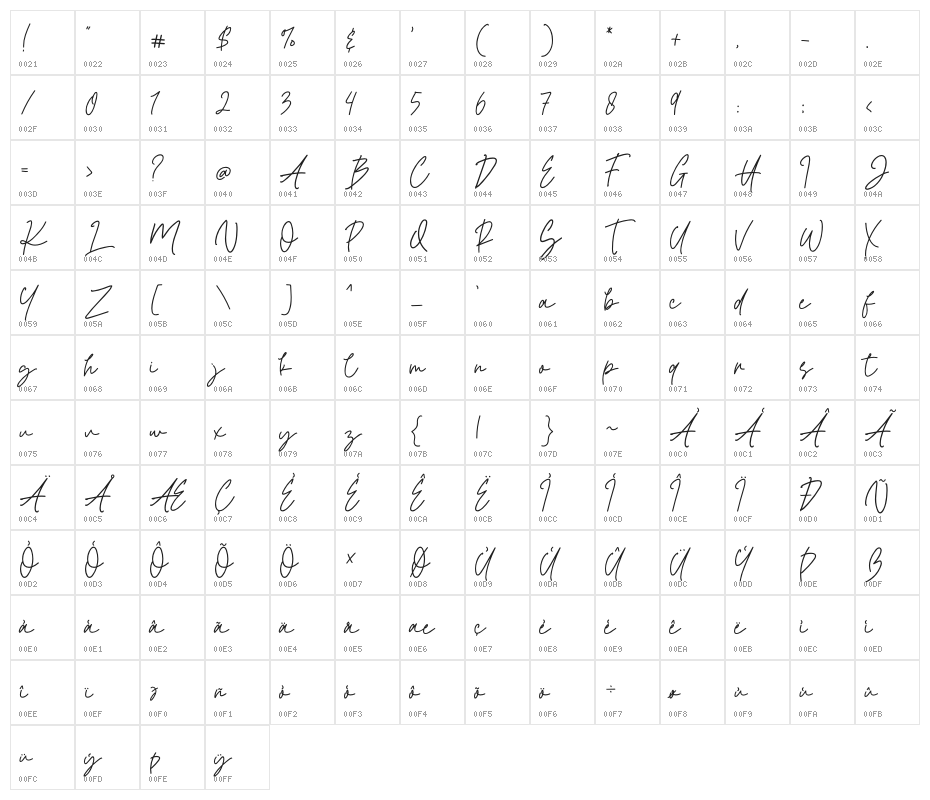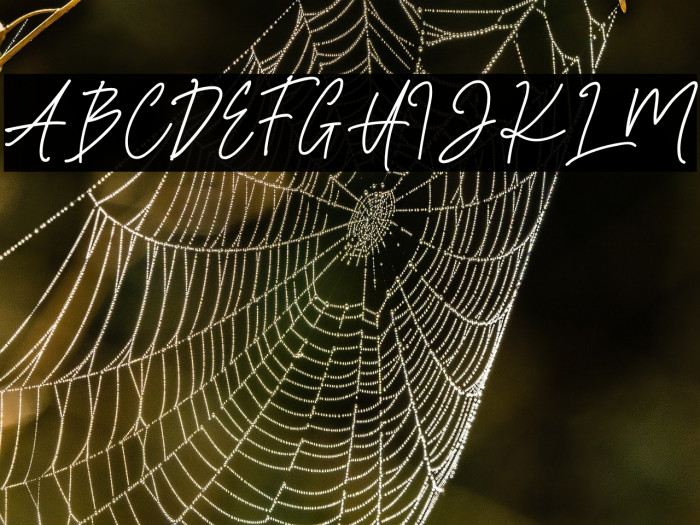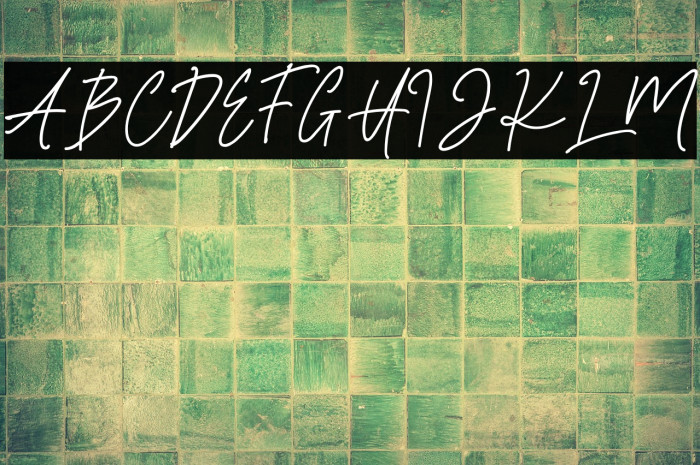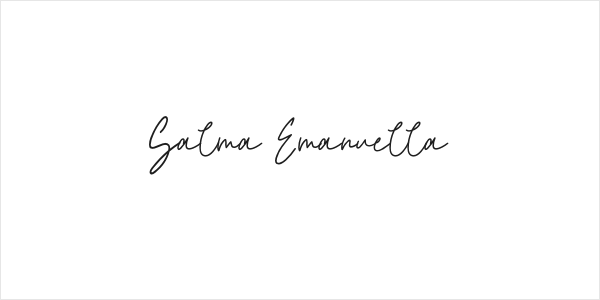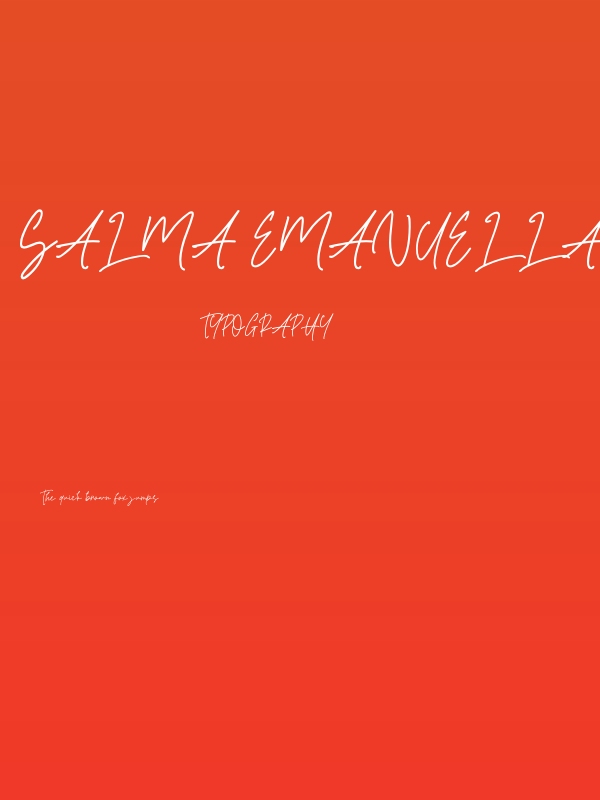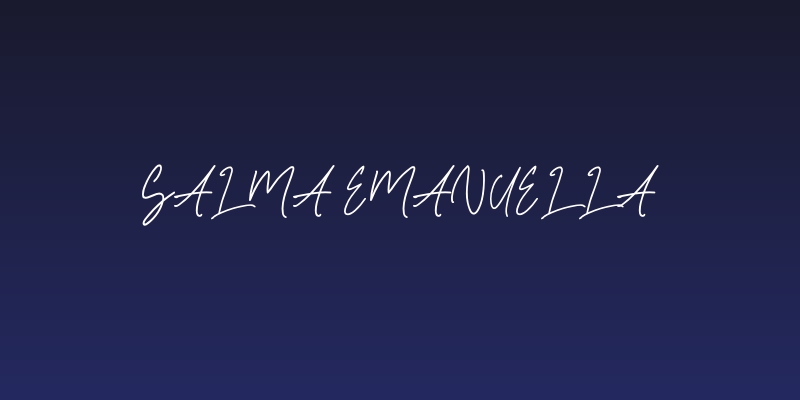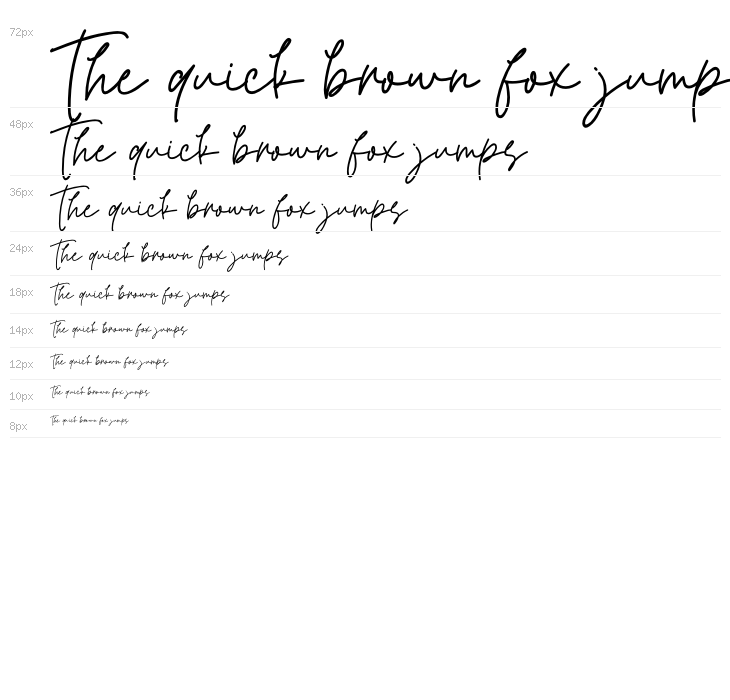
Salma Emanuella Font
Salma Emanuella Description
This font exudes a casual, handwritten style with a flowing, cursive appearance. The letters are elegantly connected, creating a seamless and fluid look. The uppercase letters are slightly more pronounced, while the lowercase letters maintain a consistent, smooth line. The numerals and special characters complement the overall style, adding to its versatility. The strokes are moderately thick, providing a balanced contrast that enhances readability without sacrificing the aesthetic appeal. This font captures a personal and informal tone, making it ideal for projects that require a touch of personality and warmth.
Overall StyleCasual, Elegant
Use CaseLogos, Invitations, Social Media
Proposed ProjectsIdeal for personal invitations, greeting cards, branding projects, and social media graphics.